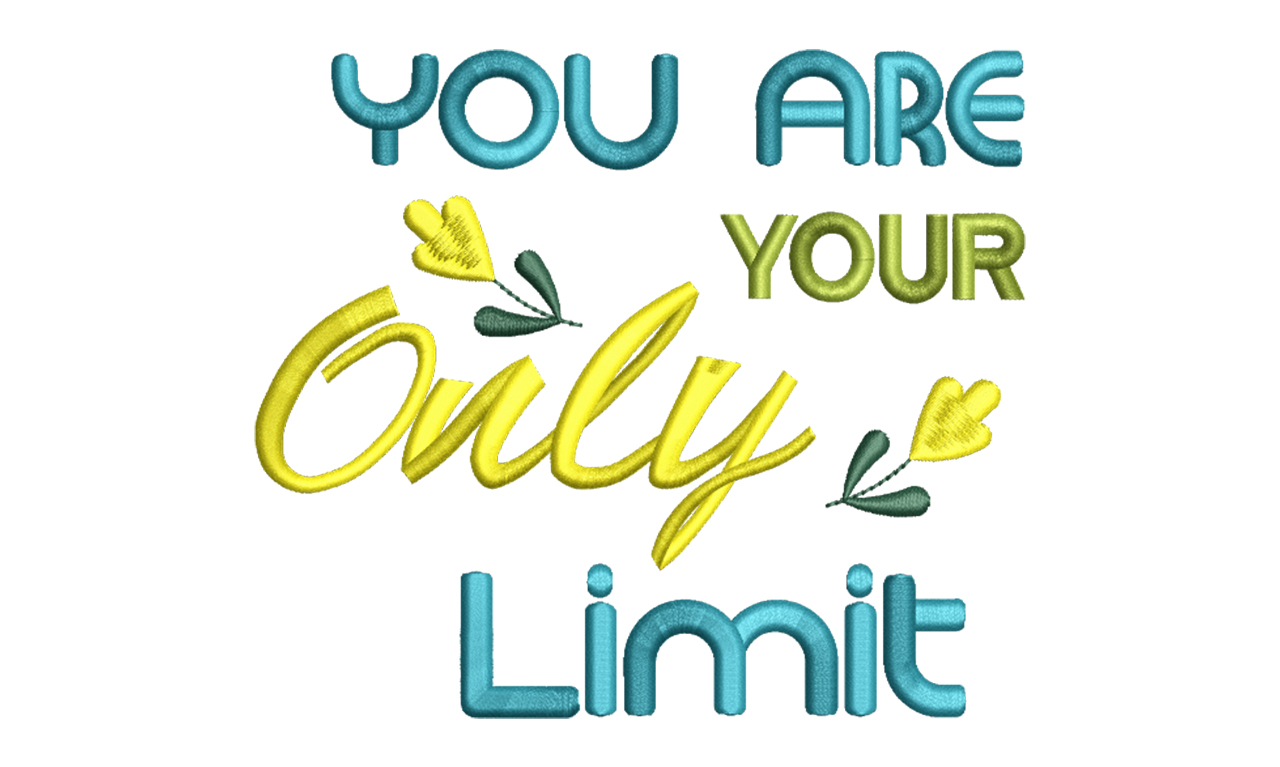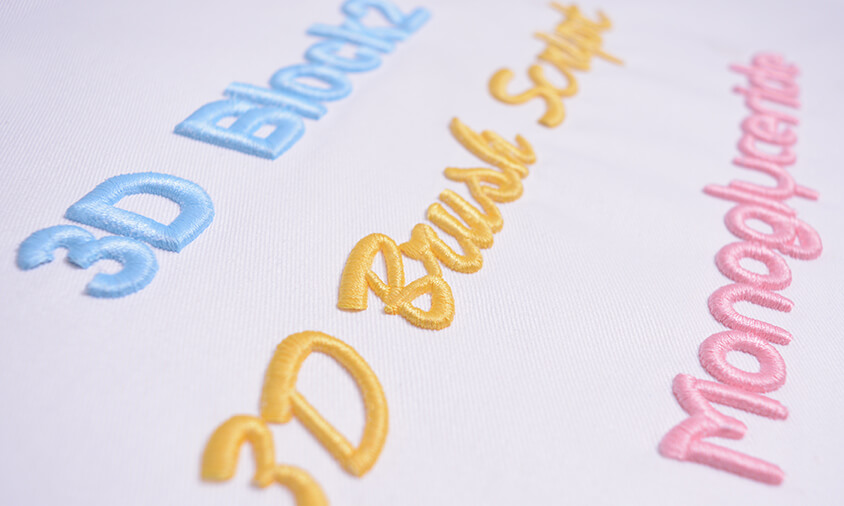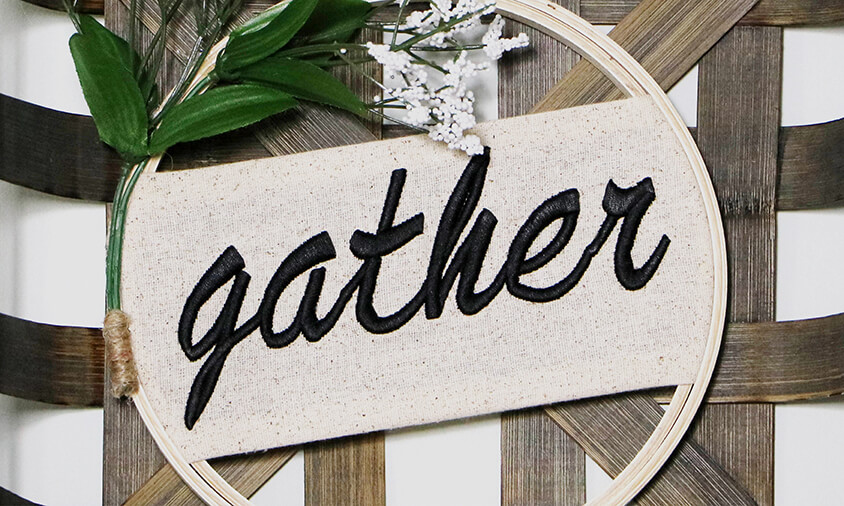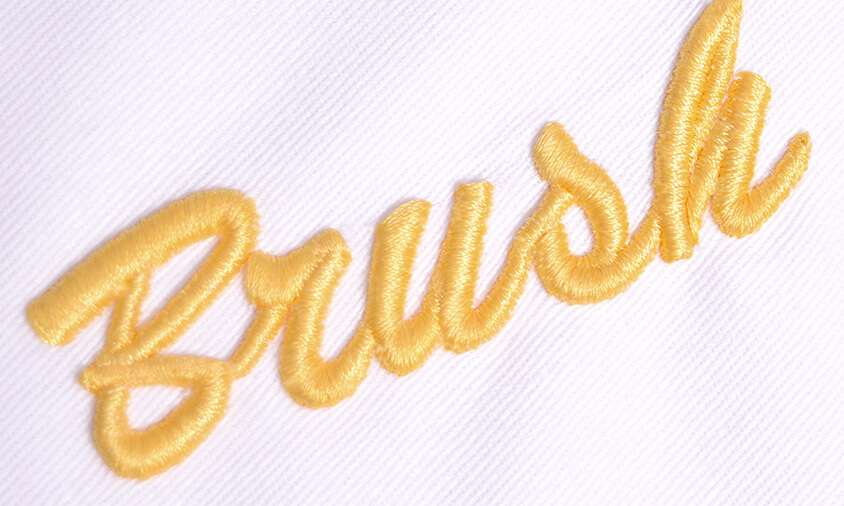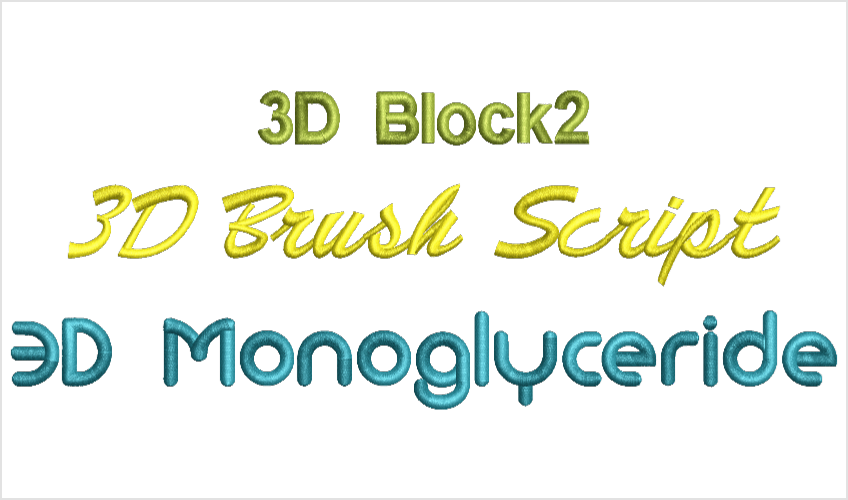
Font Pack #6 – 3D Puffy Foam
To create the perfect 3-dimensional embroidery fonts, you need special 3D puffy foam fonts. This looks especially good on hats and wall hangings where you want to add a little more depth.
The embroidery puffy foam is usually 2-3mm thick so you cannot simply add the foam to regular lettering.
The font needs to be digitized specifically with 3D foam in mind. If not, your ends will not cut or pull of well and the foam will push through the ends.
It’s really simple to use puffy foam fonts. Just follow these 3 easy steps.
Lay the foam on top of the hoop and make sure if covers the complete embroidery area
• Stitch the embroidery
• Gently pull away the foam
• Create some cool new projects with this and have fun!
3D Block 2
Block fonts are the most popular font style when using puffy foam. Perfect for backpacks, sports bags and caps. Use 2-3 mm puffy foam with this font. It will stitch as digitized without closest join to preserve the look.
3D Brush Script
Brush Script gives the feel it was handwritten but with the artistic flare using a brush and ink. Add 3D puffy foam fonts and your casual projects are sure to “pop”. We recommend 2 mm foam with this font. It will stitch as digitized without closest join to preserve the look.
3D Monoglyceride
Bold, upright, sans serif and rounded. That’s what you get with the Monoglyceride font! When you need a block look but you want something a little more modern. Use 2-3 mm puffy foam. This font will stitch as digitized without closest join to preserve the look.